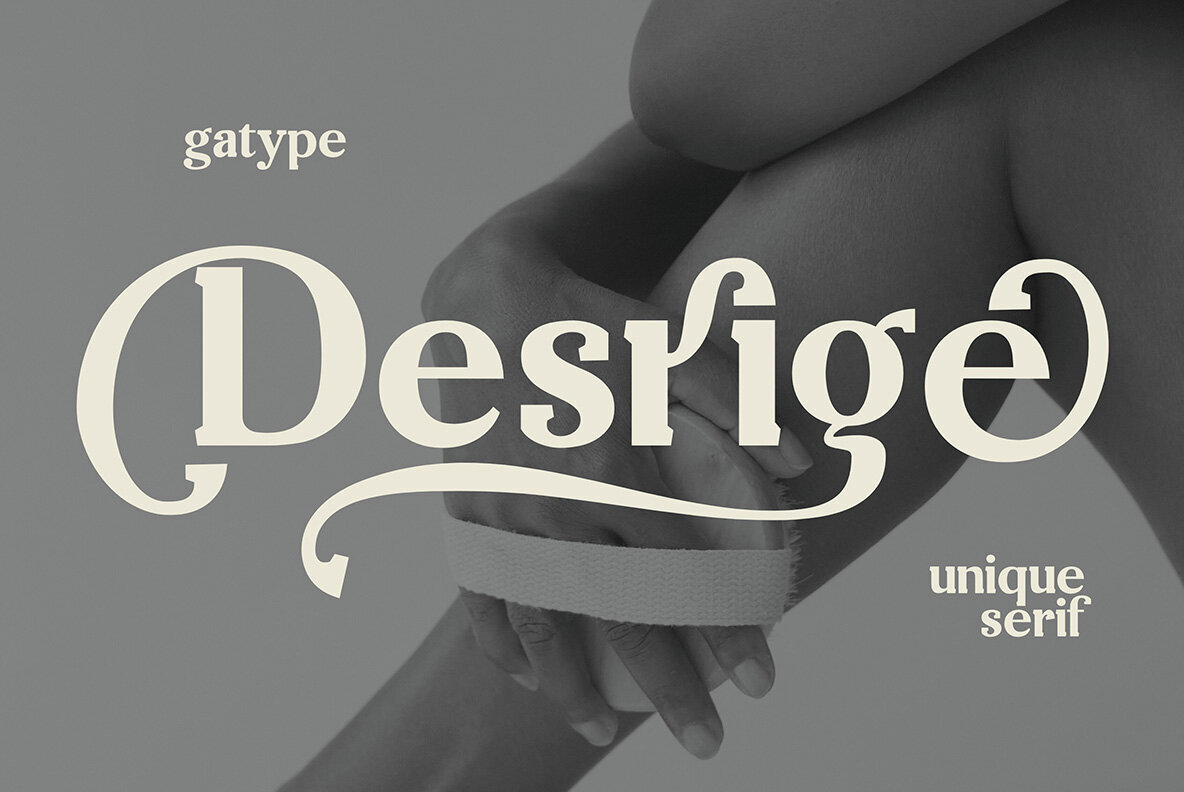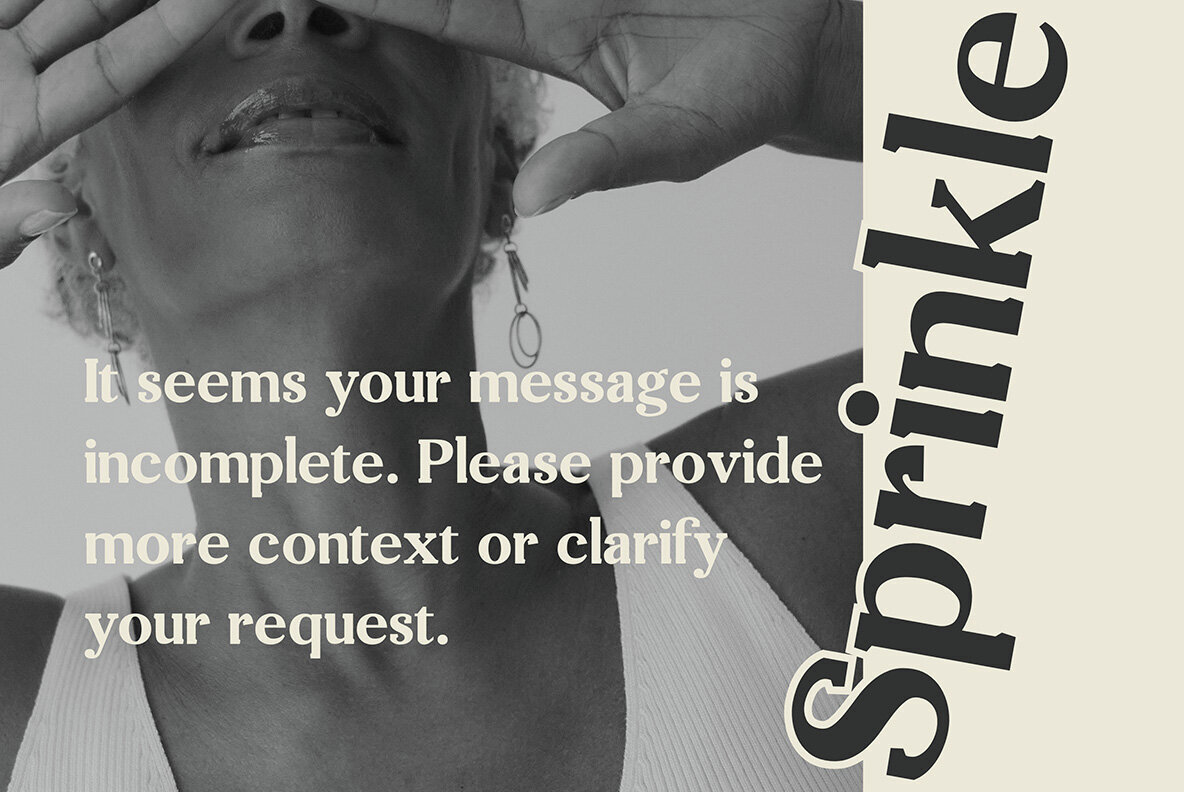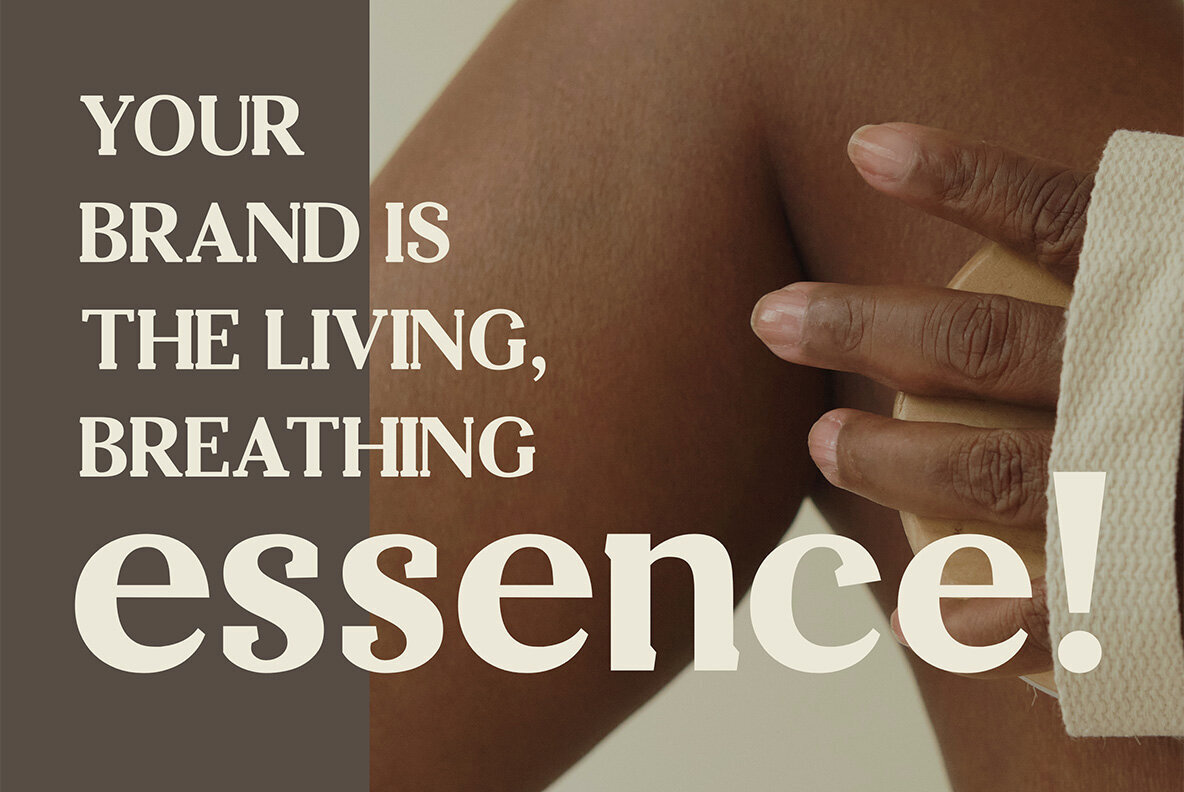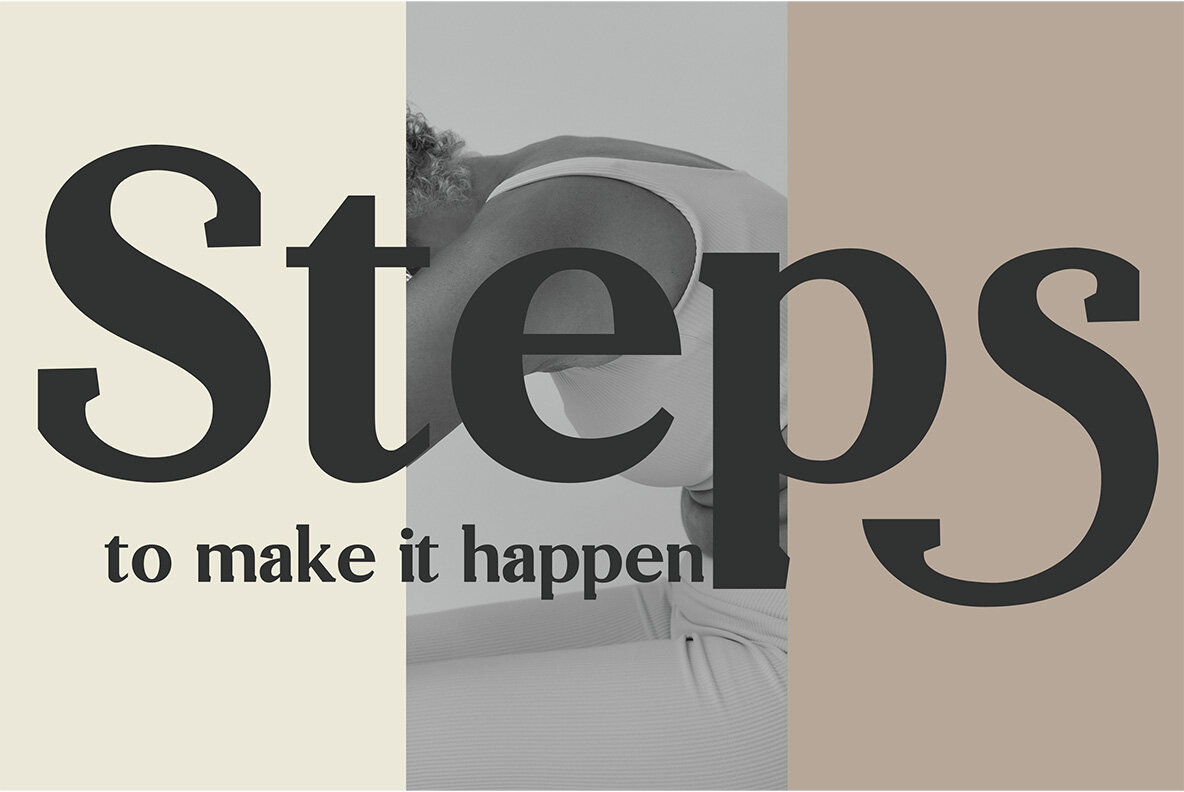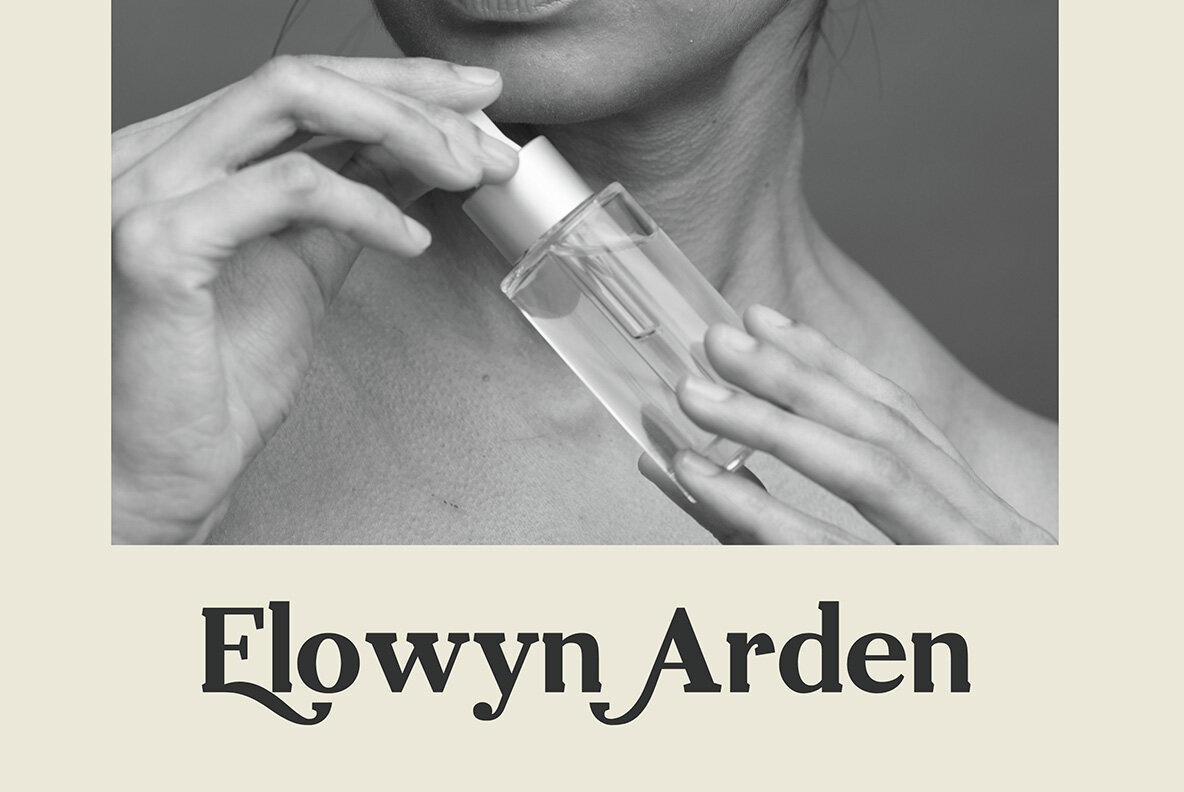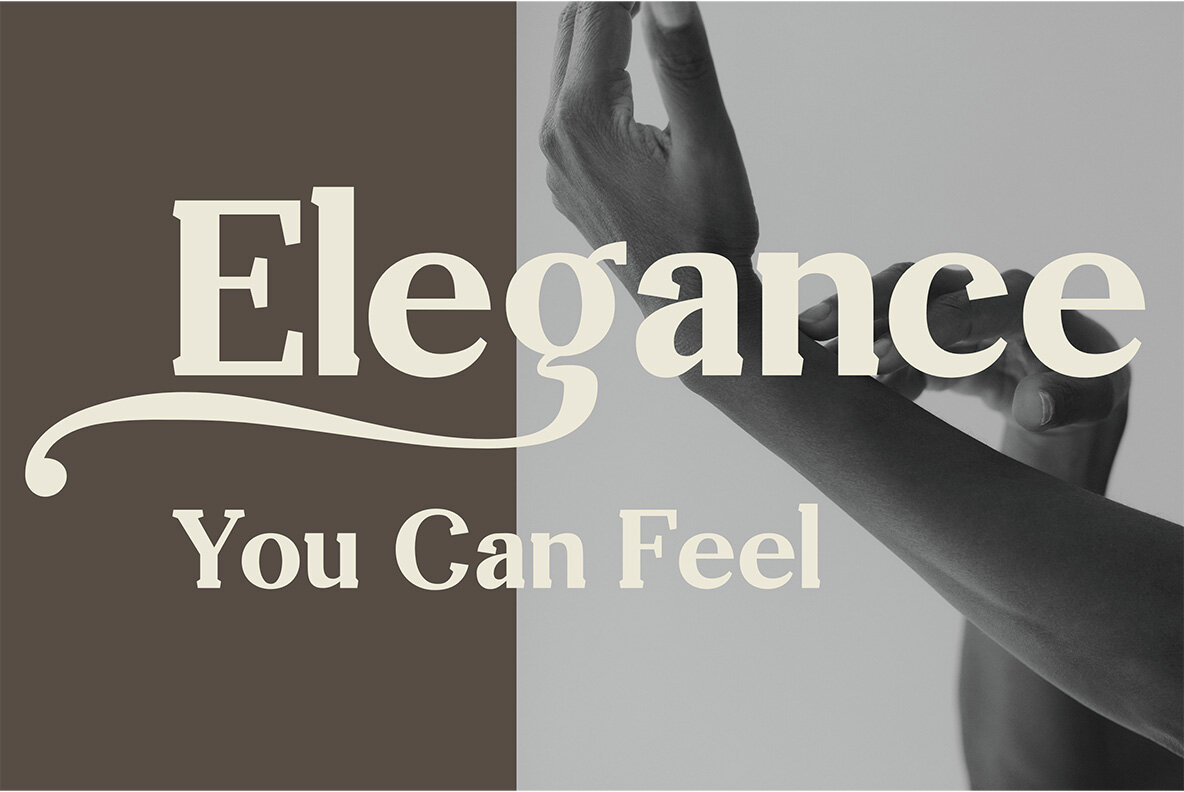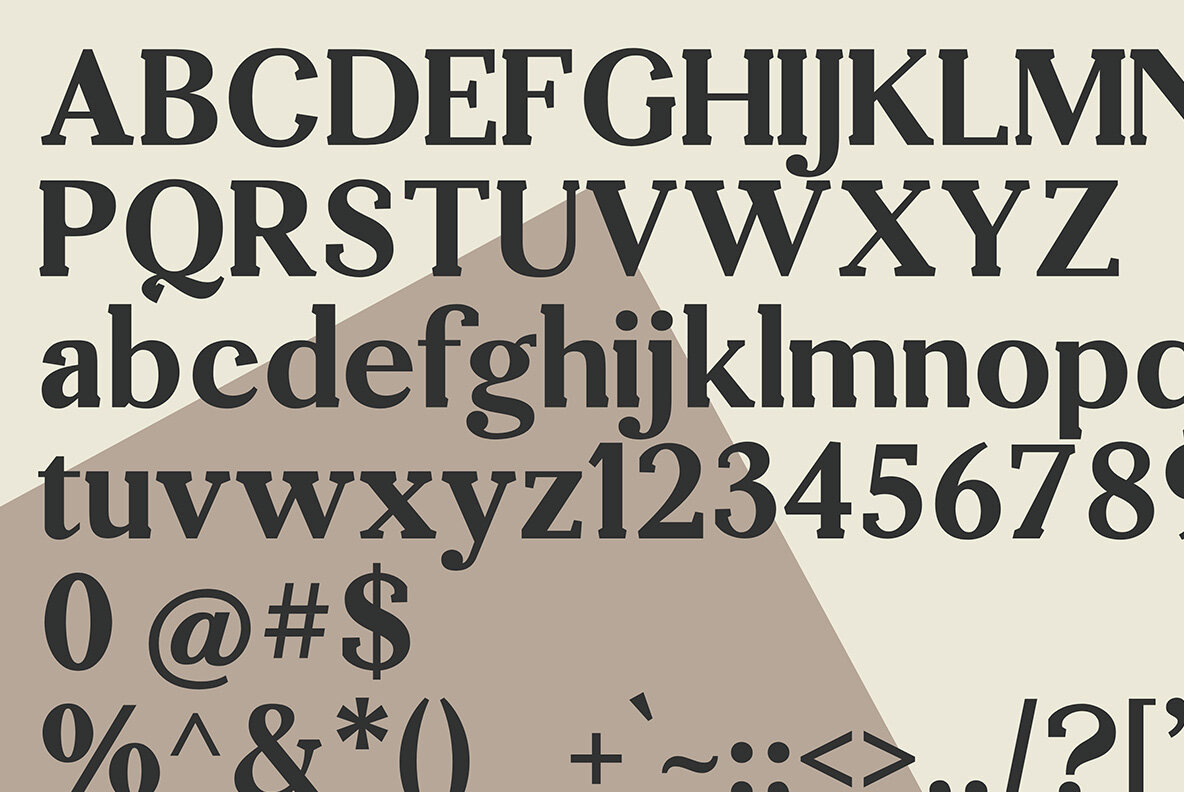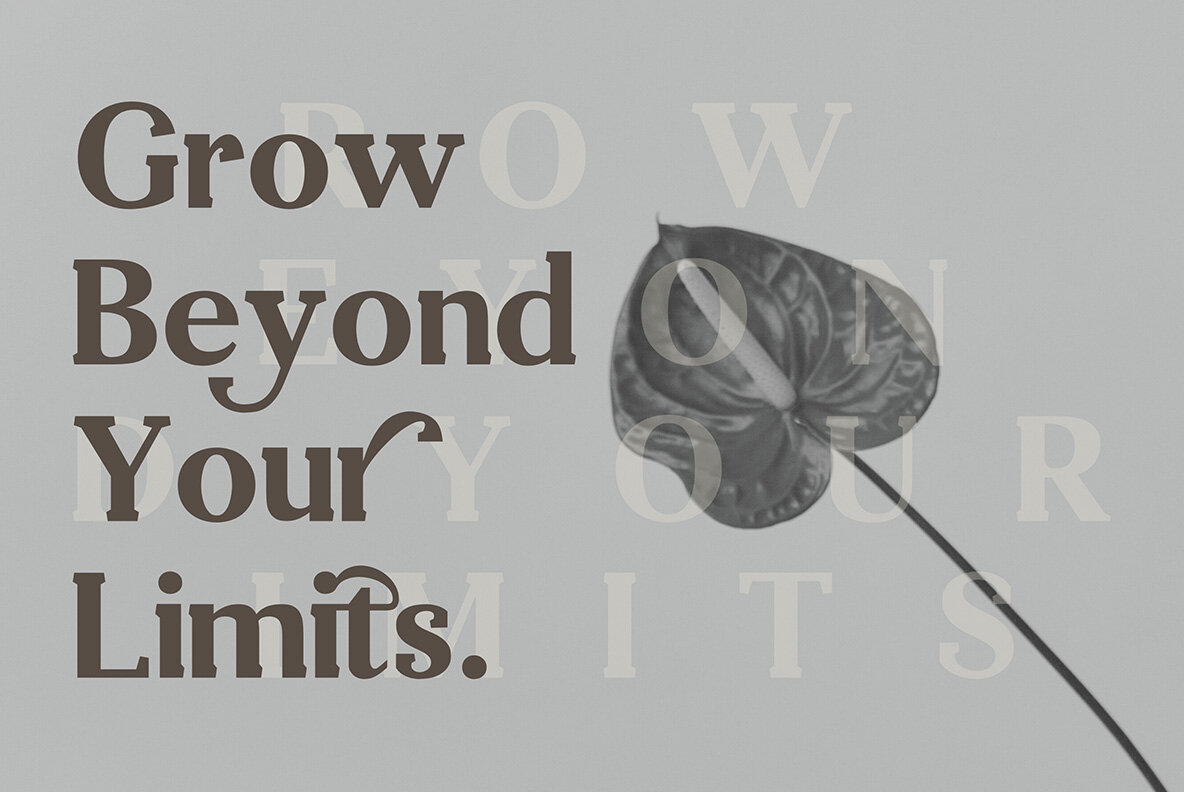
Desrige Font
Desrige
Desrige Serif offers sophisticated letterforms shaped with graceful curves and refined details. This typeface stands out for its versatility, allowing for expressive and unique typography across branding, packaging, editorial, and premium design work.Desrige Serif Typeface
Multilingual support ensures seamless use for European languages, making Desrige Serif practical for diverse design projects.Key Features